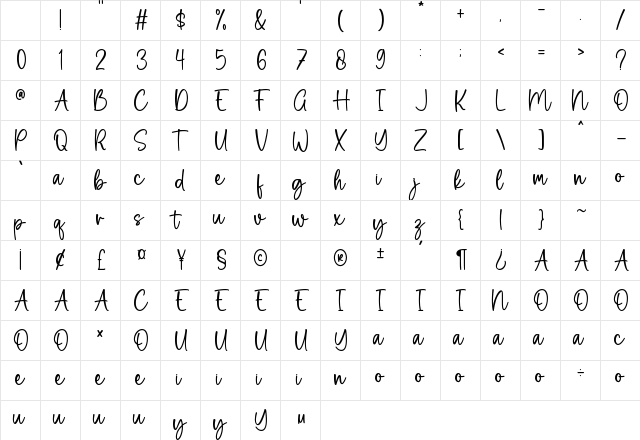
Complete Stay Wild Regular glyph index. Displaying only characters natively supported by Stay Wild Regular font.
Stay Wild is a composed and adaptable typeface that performs quietly and consistently across a wide range of design contexts.